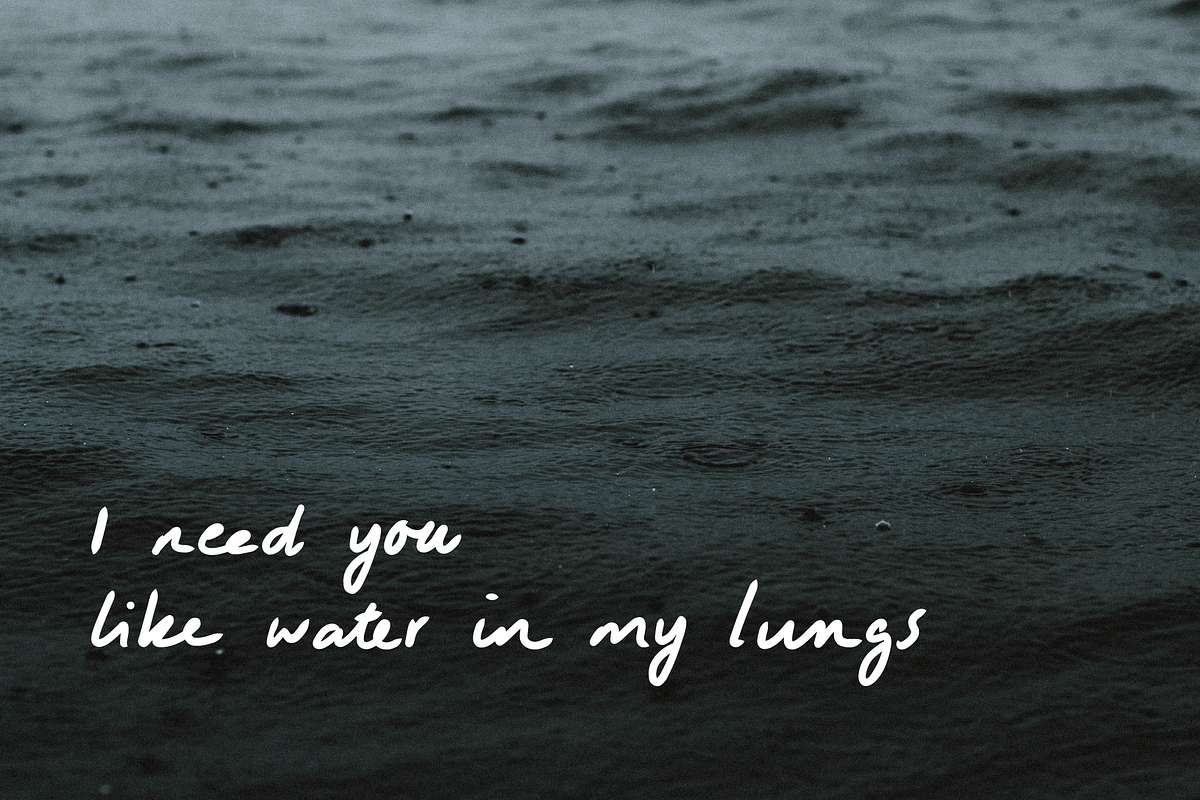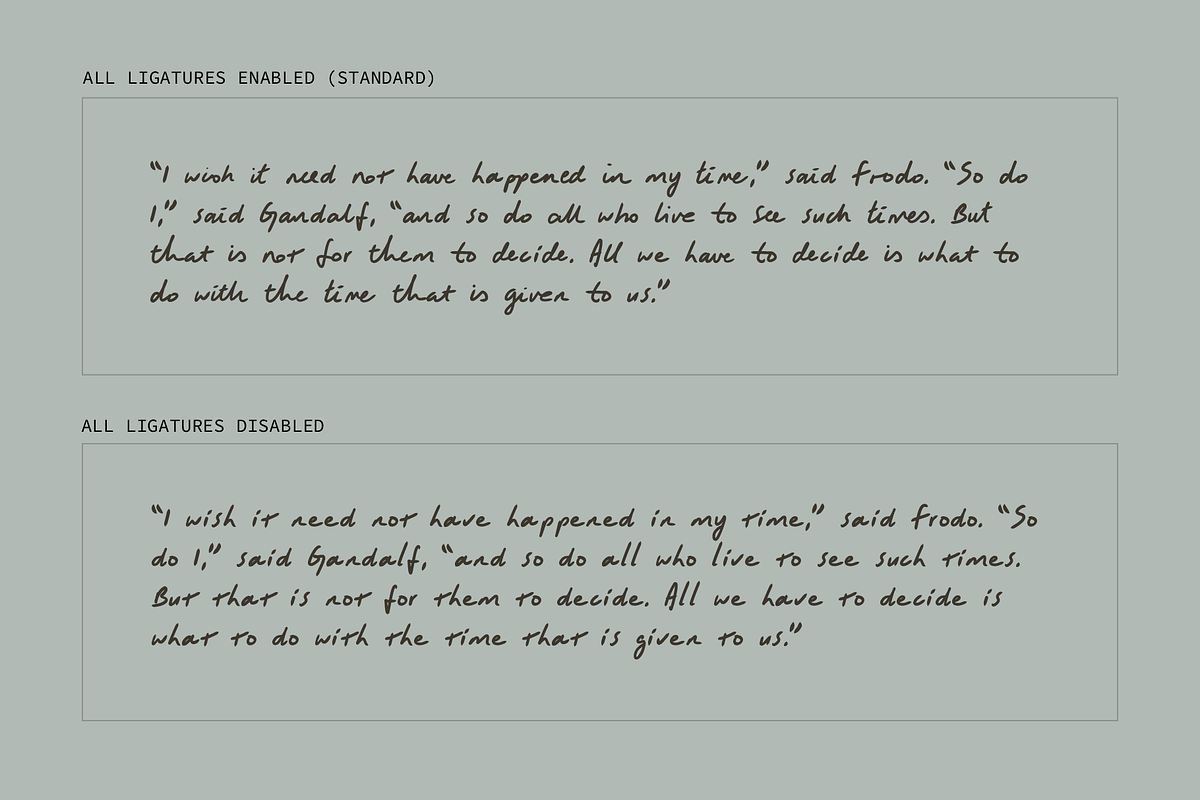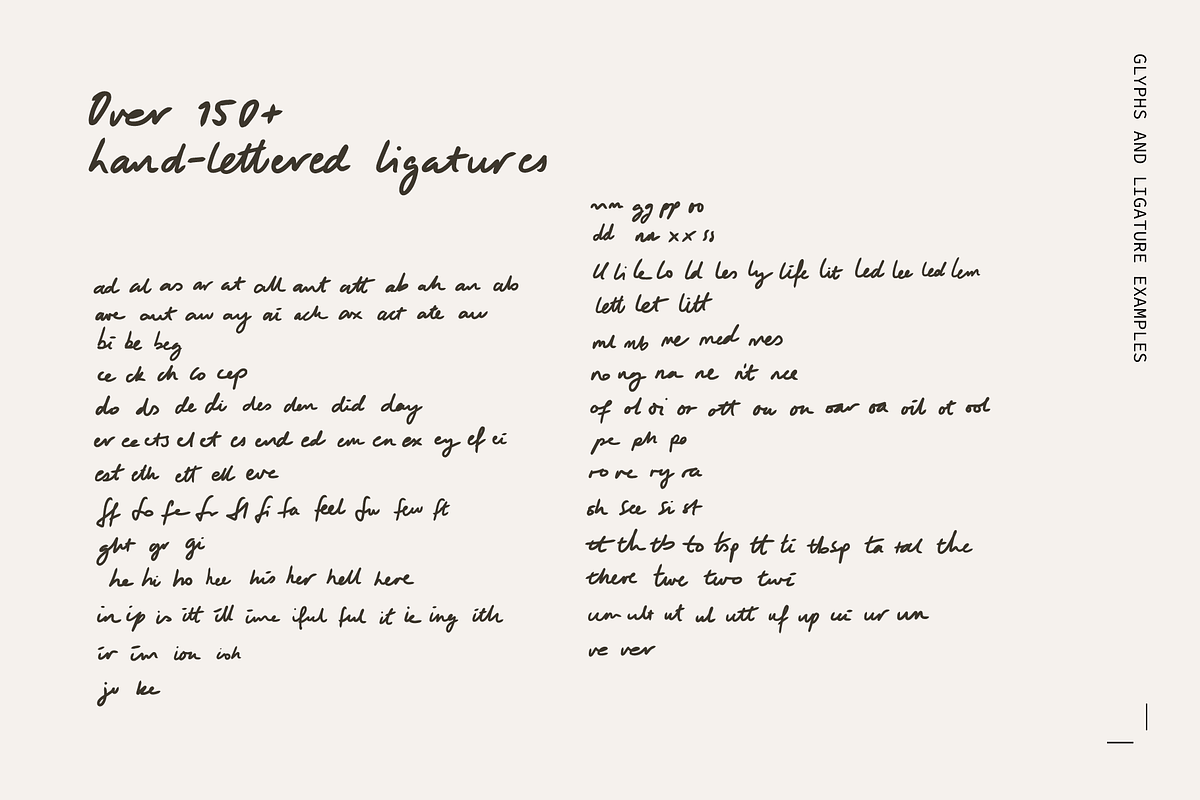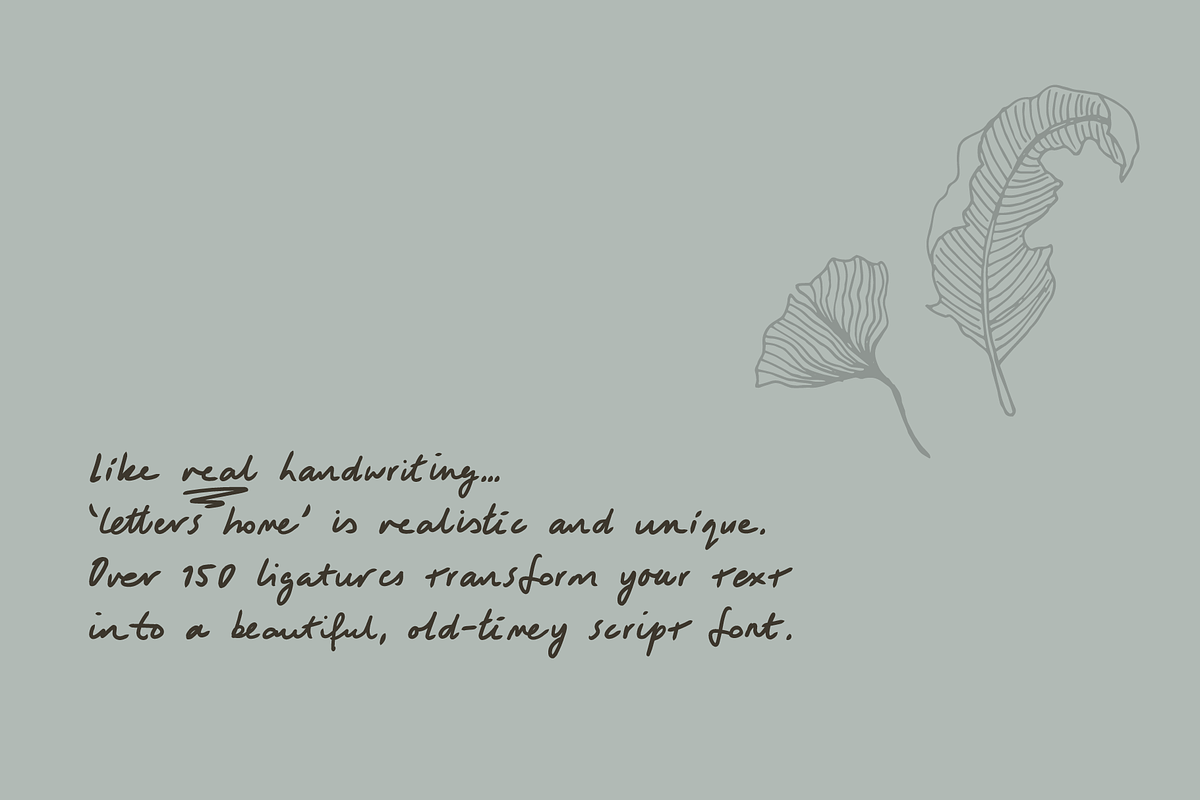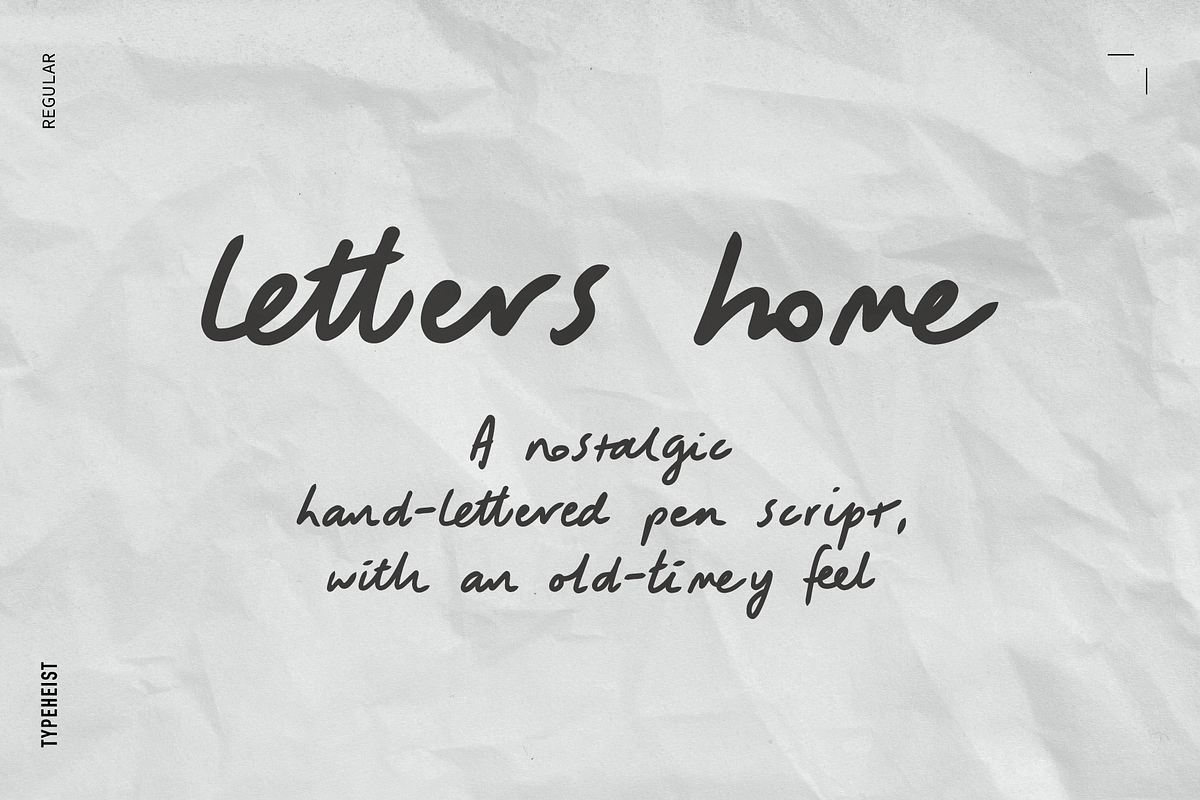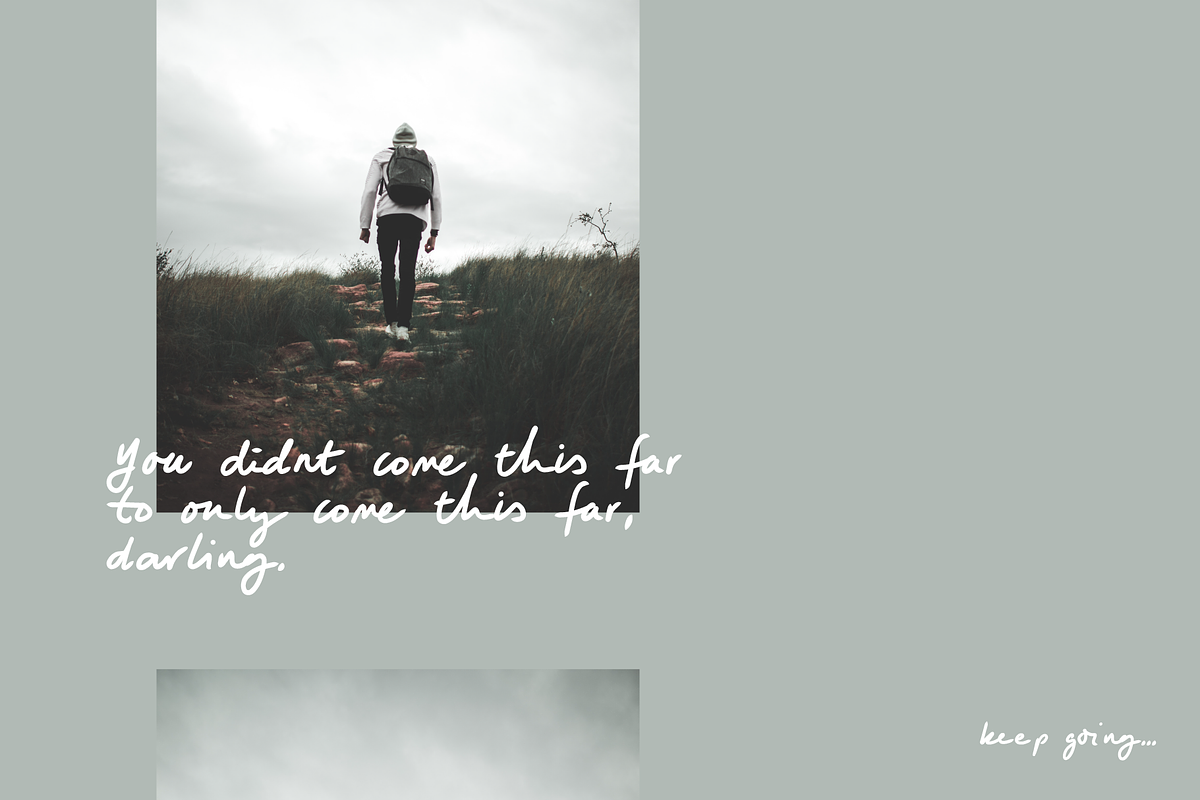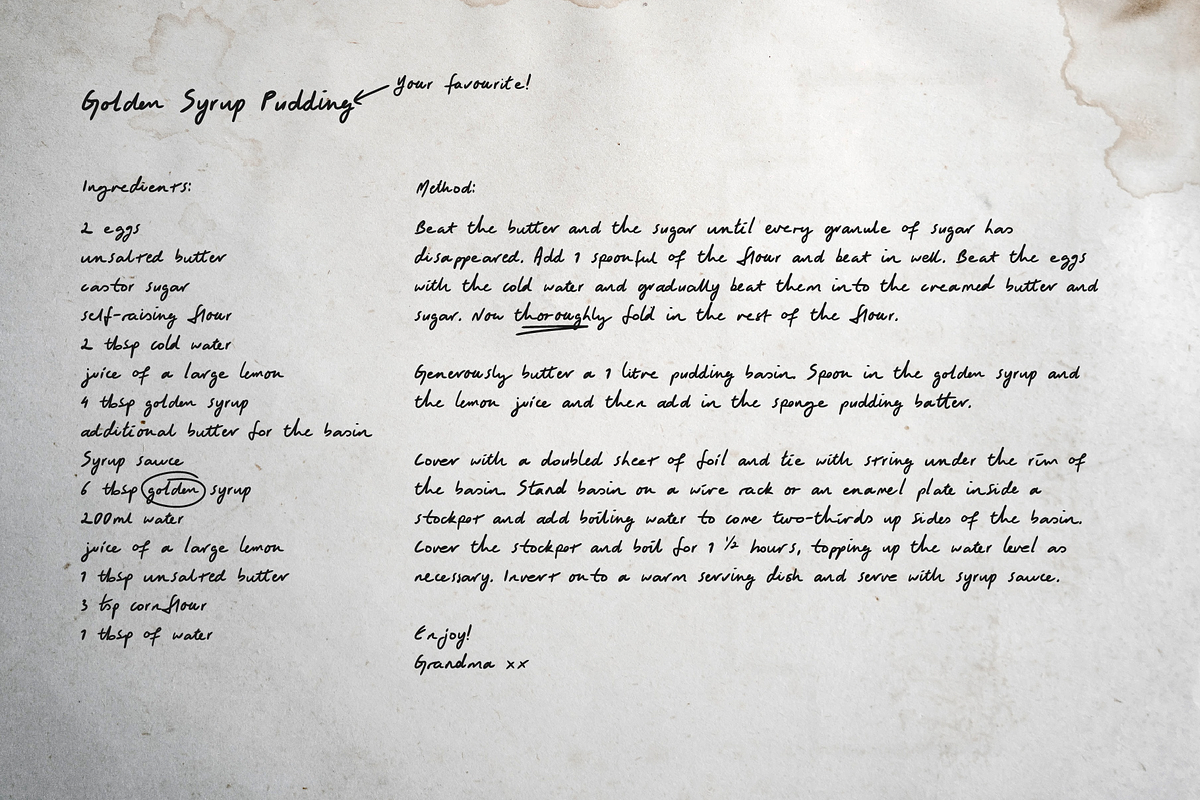
Letters Home Romantic Pen Script
The nostalgic hand-lettered pen script, written with emotion.
Like real handwriting... ‘Letters Home’ is realistic and unique with an old-timey feel. Over 150 ligatures transform your text into a beautiful, script font. Warm and fuzzy, like grandma's recipe or a love note home.